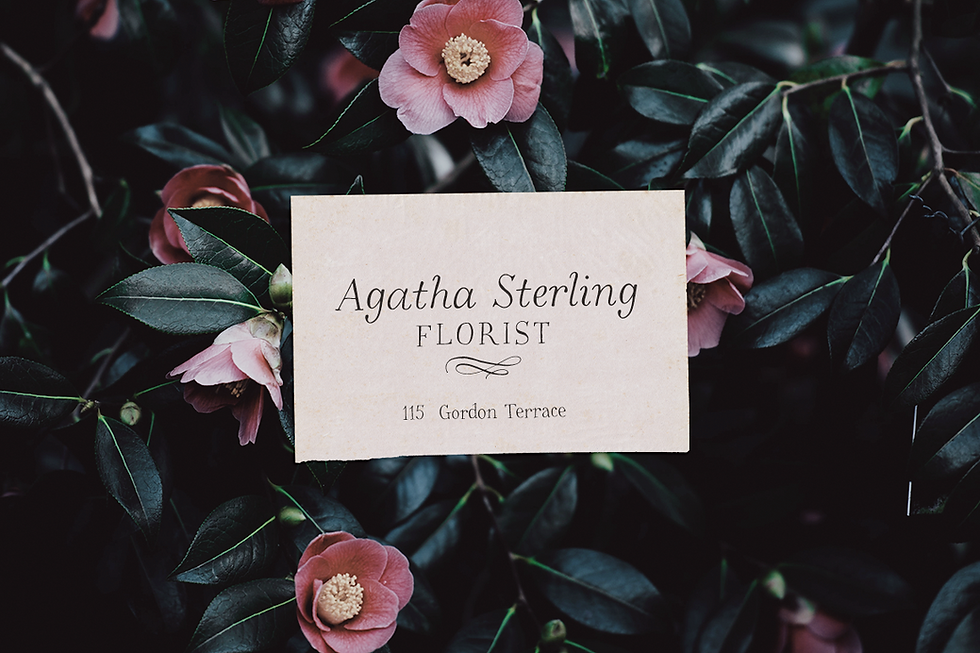
High Hopes is a quirky handmade serif font with variations that show up "randomly" through contextual alternates, true italics and ornaments. Use this font in designs such as postcards and notes, posters, logotypes, social media posts, branding and packaging.
High Hopes includes:
Regular font with three contextual alternates for each letter (separate alternate font files are also included)
Italic font with three contextual alternates for each letter (separate alternate font files are also included)
Ornaments font with swashes and frames BONUS!
High Hopes handmade serif font